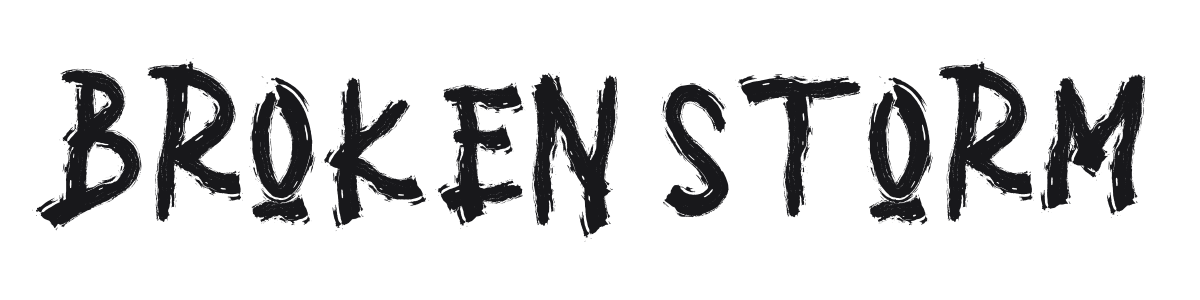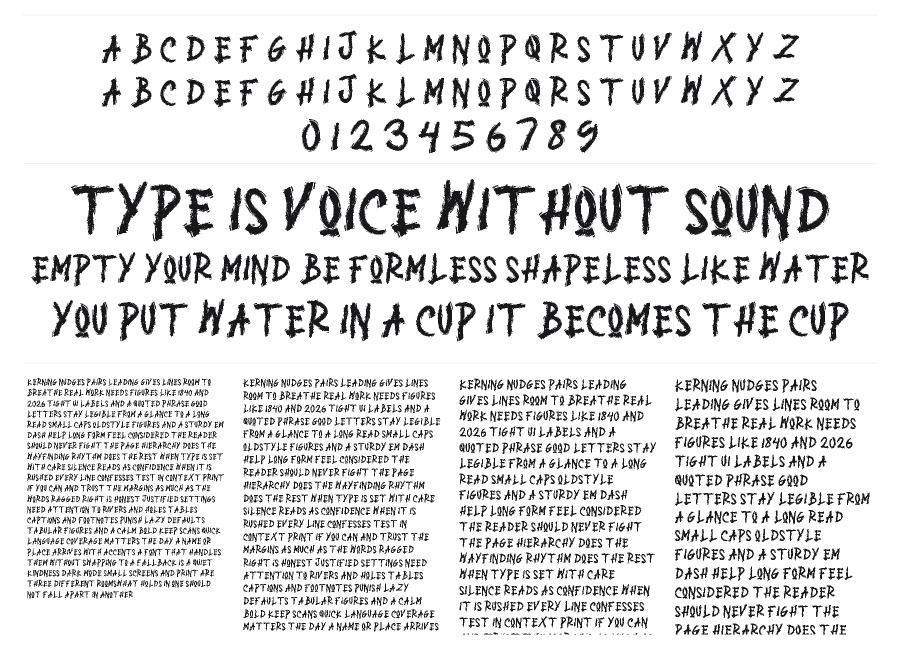
Broken Storm
Broken Storm is a heavy brush display font built on aggressive distressing and splintered ink texture. Every character looks like it was painted fast and hard, with frayed strokes and rough edges that read as raw energy rather than decoration. It suits horror titles, band logos, and any poster that needs to feel like it survived something.